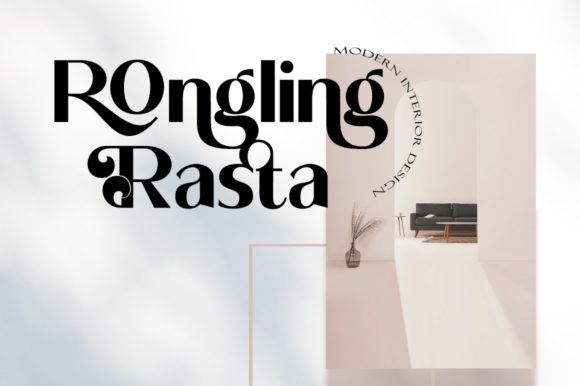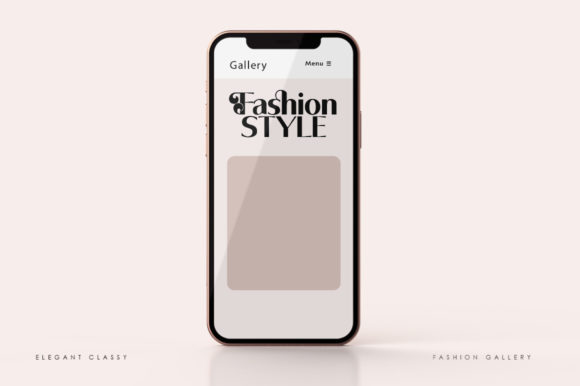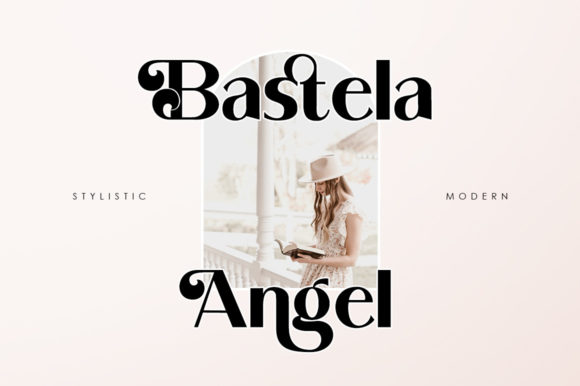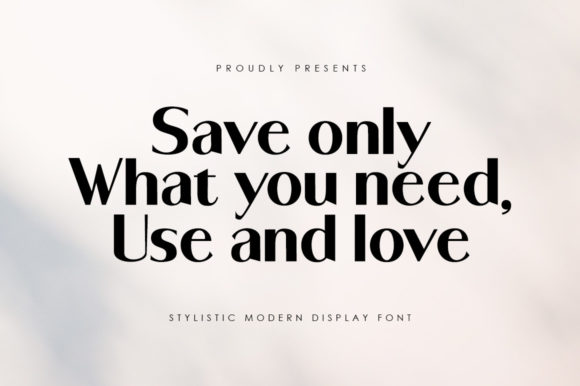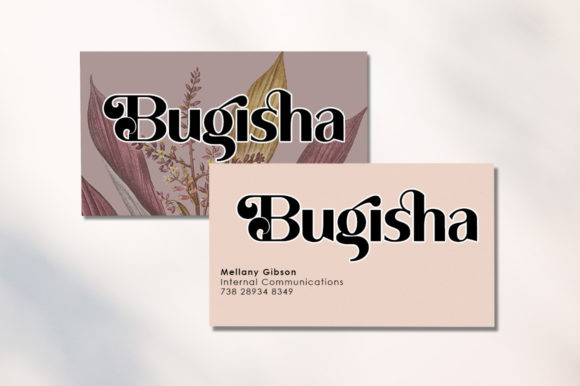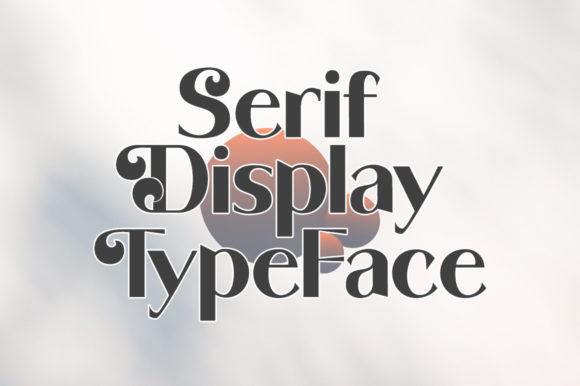
The Perfect Blend of Retro Charm and Modern Flair: Introducing Bugisha Font
Remember that moment when you stumbled upon the perfect font to elevate your design project? The one that sparks excitement and sets your creative juices flowing? For many designers, that moment is exactly what happens when they discover the Bugisha Font. This cool and chunky retro styled display font is more than just a pretty face – it’s a game-changer for any project that needs a bold, eye-catching touch.
With its PUA encoding, accessing all the glyphs and swashes is a breeze, making it a valuable addition to any designer’s toolkit. Whether you’re working on a branding project, a social media campaign, or a website, the Bugisha Font is sure to bring a unique and stylish element to your design. Its versatility and ease of use make it a must-have for designers looking to add a touch of retro flair to their projects.
- Unique Characteristics: The font features a unique blend of African and Latin script styles, making it ideal for cultural and linguistic applications.
Designer Review: Bugisha Font
Overall, the Bugisha Font is a great addition to any designer’s toolkit, offering a unique blend of modern and traditional elements. ✨
- Unique aesthetic: The Bugisha Font has a distinct, hand-drawn feel that sets it apart from more generic fonts.
- Legibility: Despite its artistic flair, the font is surprisingly easy to read, making it suitable for a wide range of applications.
- Character set: The font includes a comprehensive character set, including accents and symbols, making it versatile and practical.
- Size limitations: The font may not be ideal for very large or very small text sizes, where its unique characteristics can become distorted.
- Lack of consistency: Some characters may not have the same level of detail or flair as others, which can affect the overall aesthetic.
- Not suitable for all languages: The font may not be optimized for certain languages or scripts, which can lead to readability issues.
The Bugisha Font is a solid choice for designers looking to add some visual interest to their projects. While it has some limitations, its unique aesthetic and legibility make it a great addition to any font collection. ⚠️
Bugisha Font is a versatile font that can be used for various purposes, including:
- Food and restaurant branding
- Custom signage and decals